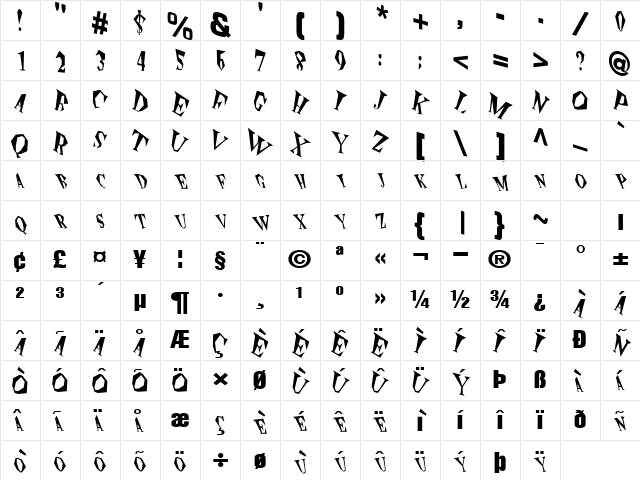
Time Regular
Time Family
Time Regular
Design Context for Time
Time is a composed and adaptable typeface that performs quietly and consistently across a wide range of design contexts.